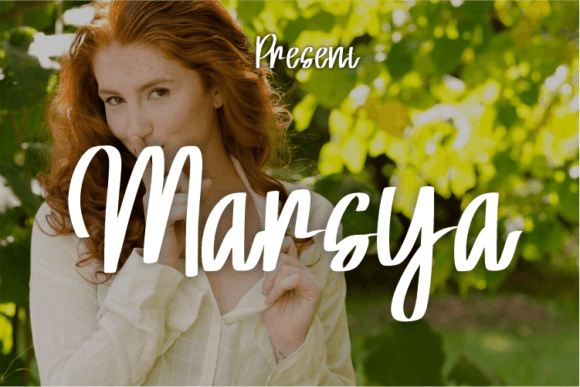
Immerse yourself in the realm of captivating calligraphy with Marsya Font, a breathtaking script font family that exudes elegance and sophistication. Inspired by the timeless beauty of classic penmanship, Marsya Font is meticulously crafted to deliver an enchanting visual experience that elevates your designs to new heights of artistry.
With its contemporary flair and impeccable form, Marsya Font adds a touch of grace and charm toã�‚らゆるプãƒã‚¸ã‚§ã‚¯ãƒˆ. Whether you're crafting wedding invitations, designing logos, or creating social media graphics, this versatile font family is sure to leave a lasting impression.
Step into the world of Marsya Font and discover the endless possibilities it holds. Its graceful curves and refined details bring a sense of luxury and sophistication to your designs, making them stand out from the ordinary. Unleash your creativity and explore the myriad ways Marsya Font can transform your projects into masterpieces of art.